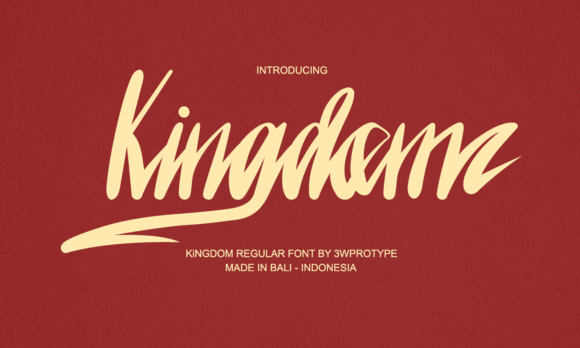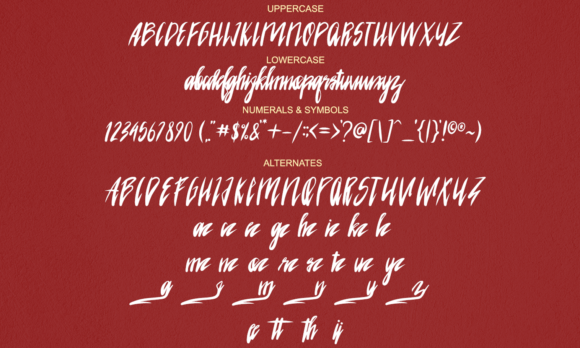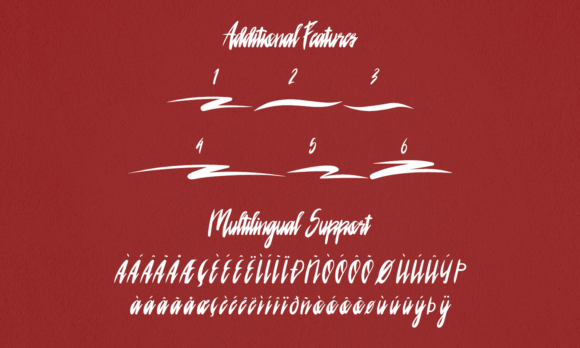
About Kingdom Font
Introducing the regular Kingdom handwritten font, which is perfect for designers who are looking to create a unique logo design, branding project, advertising campaign, clothing magazine, or more. This typeface was inspired by modern fonts combined with additional swashes and alternates.